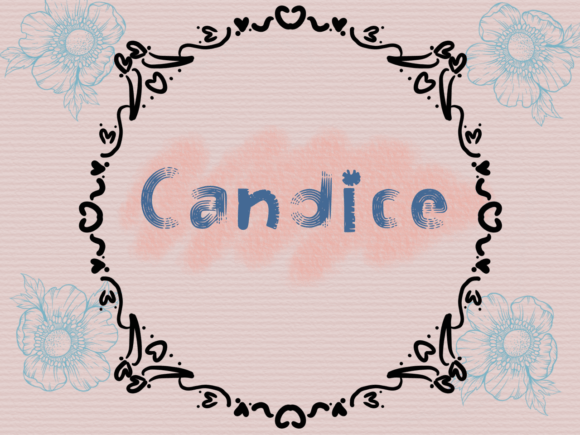
Introduction to Candice Font
Candice is a bold brush handwritten font with a unique handmade feel.
It is easy to read and can add tons of personality to your designs .